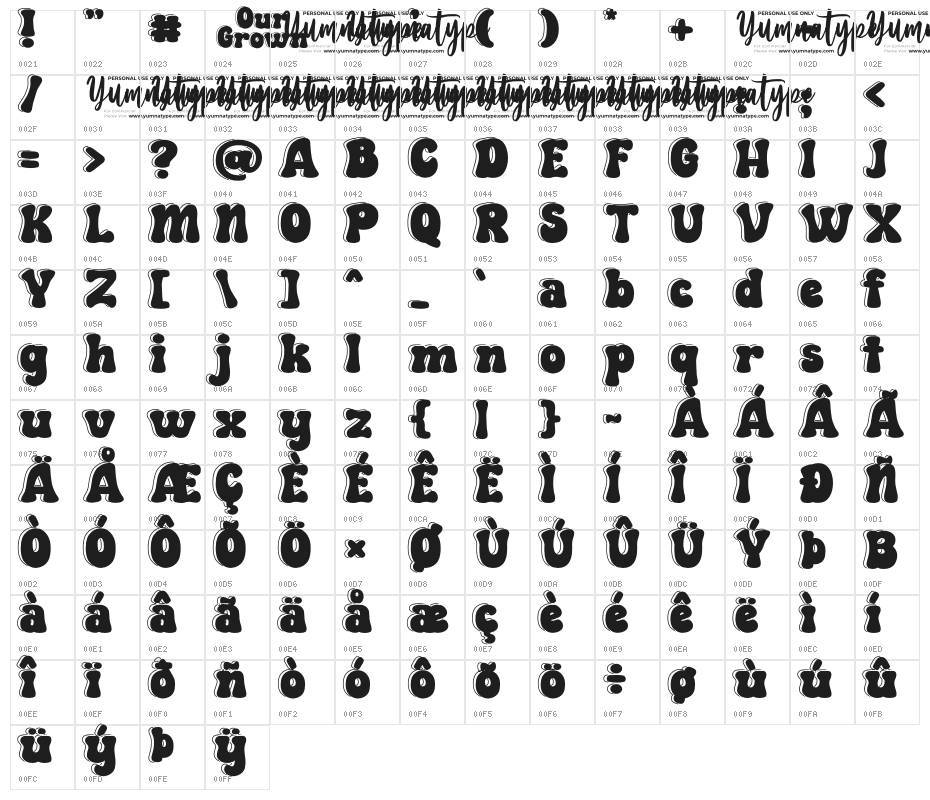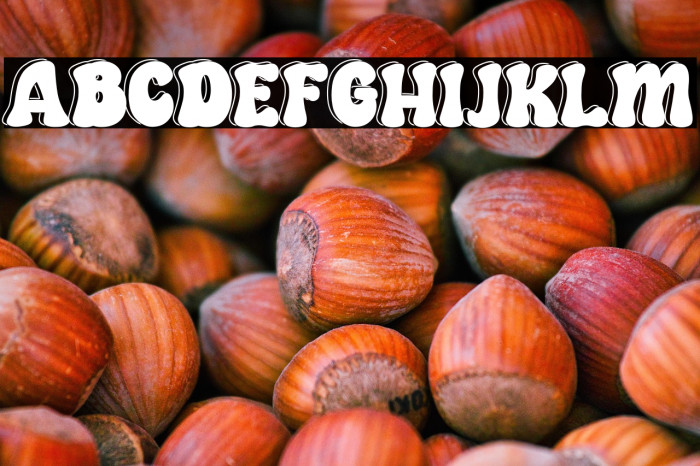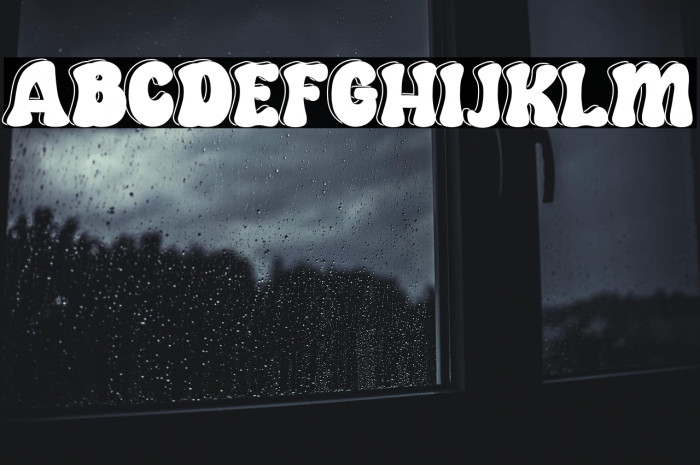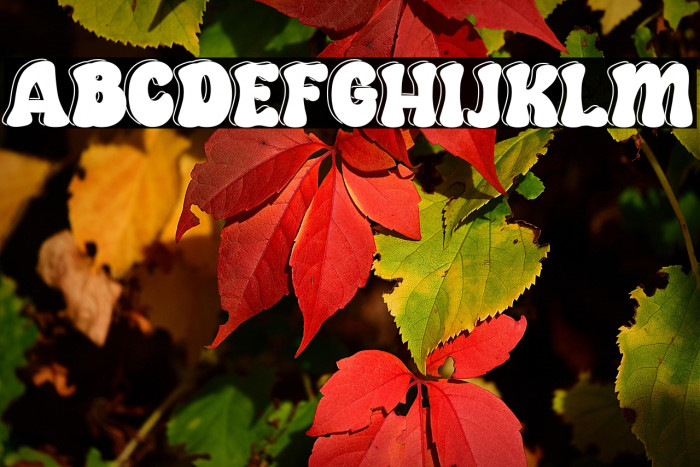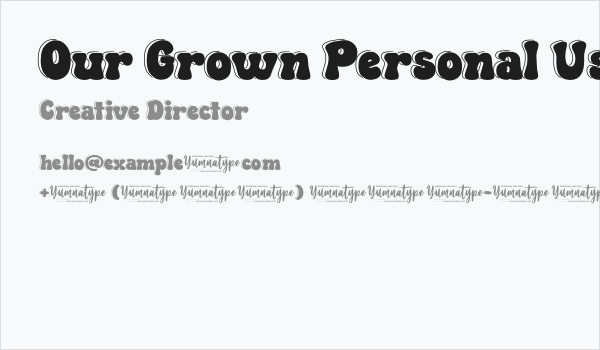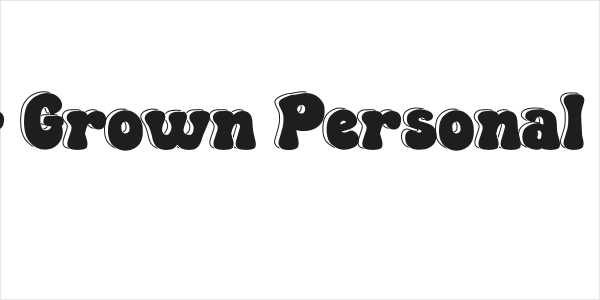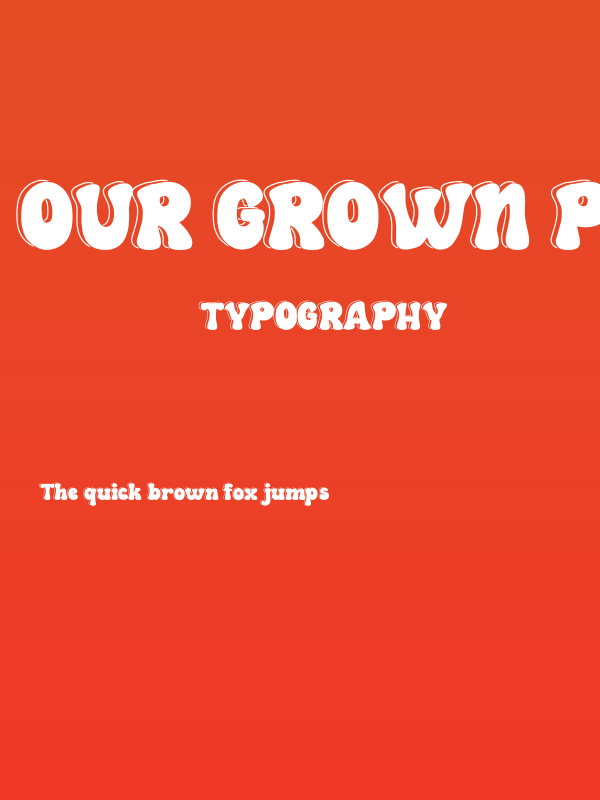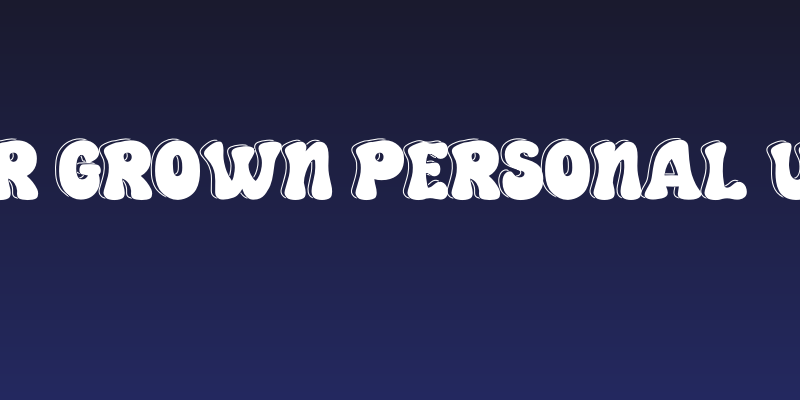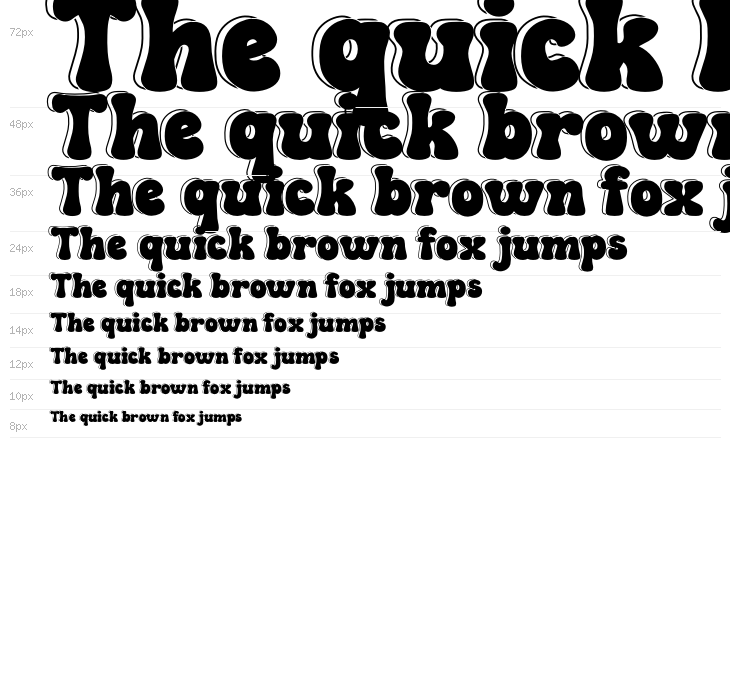
Our Grown Personal Use Font
Our Grown Personal Use Description
This font features a bold and playful design with thick, rounded strokes that create a sense of fun and whimsy. The characters are heavily stylized with a bubble-like appearance, making them stand out with a unique and eye-catching look. The uppercase and lowercase letters maintain a consistent style, with the lowercase being slightly more compact. The numbers and special characters follow the same playful theme, ensuring a cohesive appearance across all text. The font's boldness and distinct style make it ideal for creative and informal projects.
| Overall Style | Playful, Fun |